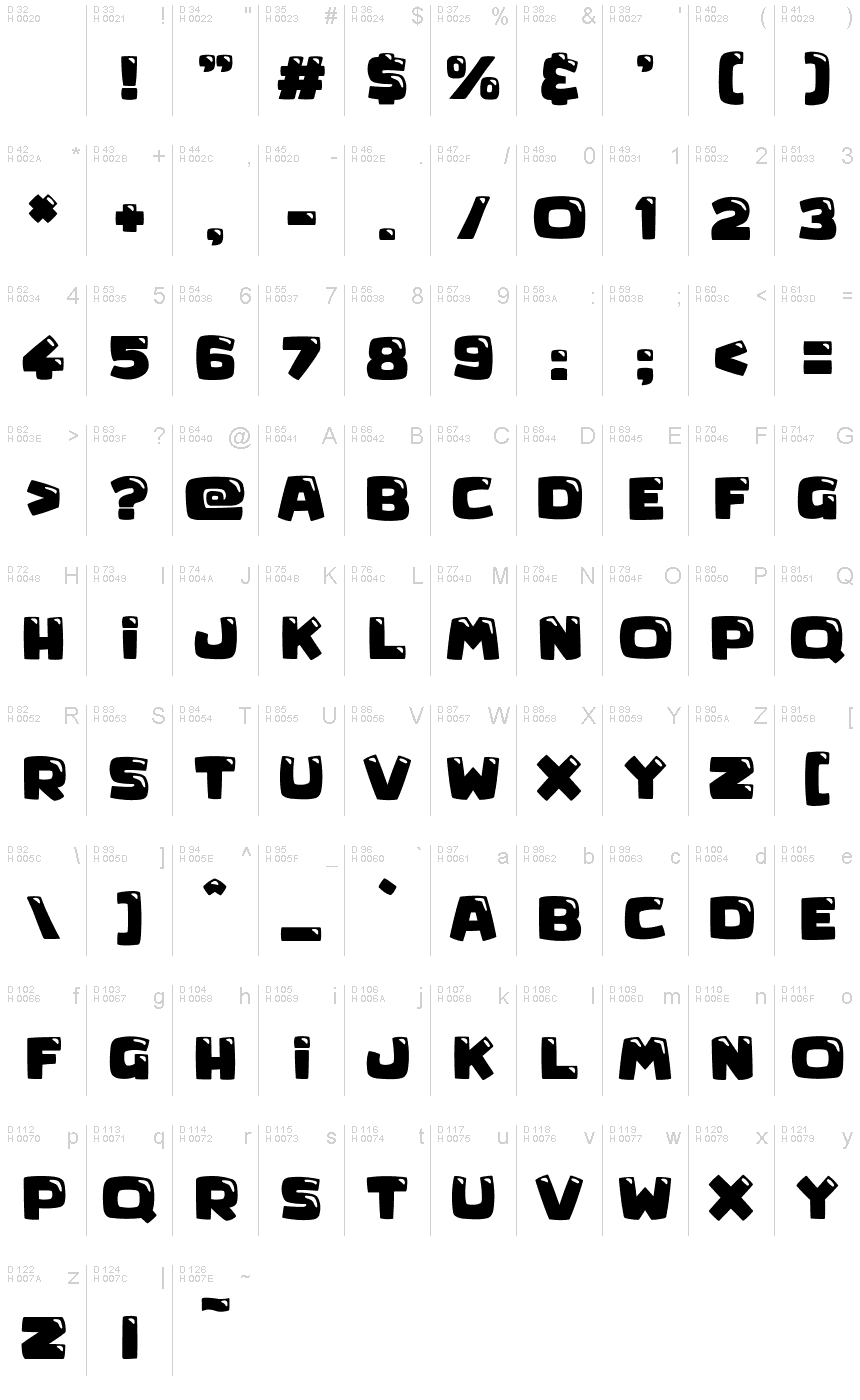
Mega Surprise
Introducing Mega Surprise, a bold display font designed by IMAGEX. With its cartoon style, this font brings an element of fun to any project. Perfect for bright logos, eye-catching flyers, or even silly greeting cards!